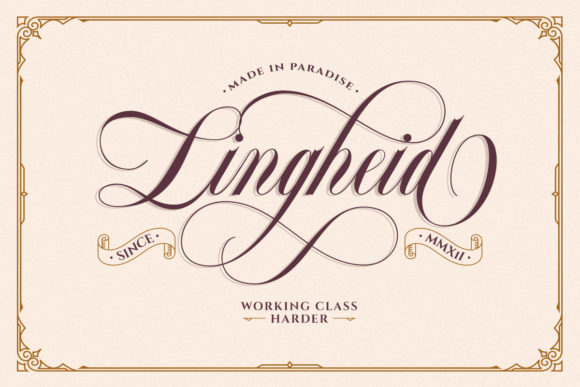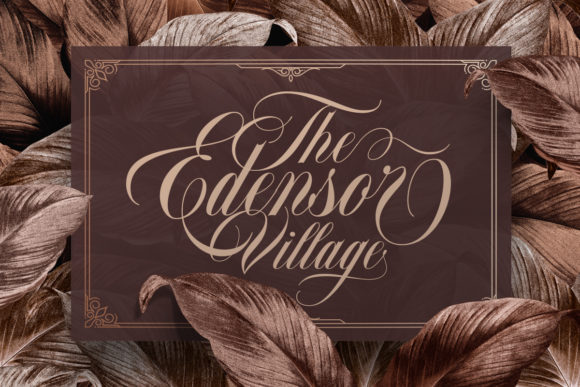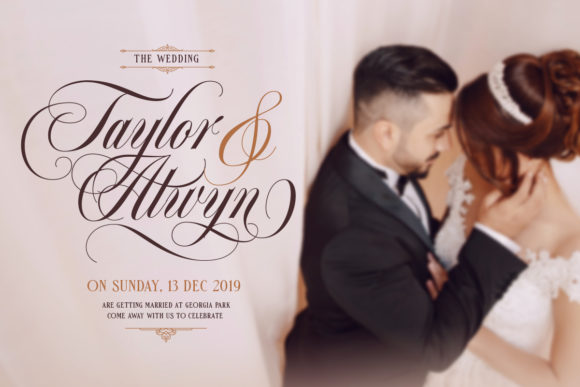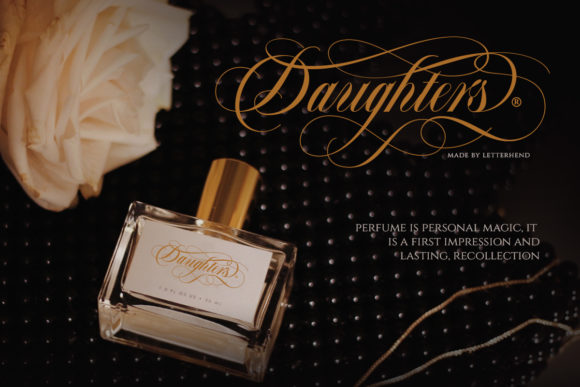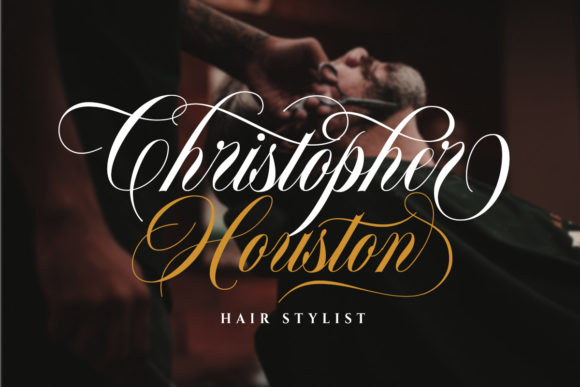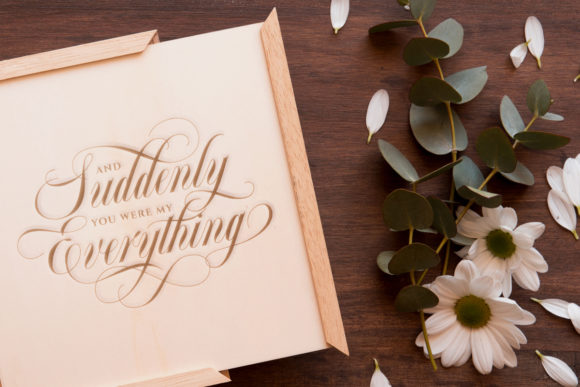
Bordemile Font: Elevate Your Designs with Luxurious Script Elegance
In the world of typography, a font can make or break a design. For those seeking to add a touch of luxury and sophistication, the Bordemile Font is an exceptional choice. This stunning script typeface, adorned with unique swashes, is versatile and perfect for a wide variety of projects. Whether you’re a designer looking to elevate your branding, a crafter aiming to add elegance to your creations, or simply a typography enthusiast, Bordemile is sure to captivate.
The Essence of Bordemile Font
Bordemile Font is a luxury script typeface that stands out for its distinctive swashes and elegant flow. Its design is meticulously crafted to provide a sense of grandeur and refinement, making it ideal for projects that demand a high level of sophistication. From elegant wedding invitations and high-end branding to stylish packaging and creative digital content, Bordemile brings a level of class and poise that is hard to match.
Key Features of Bordemile Font
- Unique Swashes: One of the standout features of Bordemile is its beautiful, unique swashes. These decorative strokes add a dynamic and artistic flair to your text, allowing you to create visually stunning pieces that capture attention.
- Luxury Appeal: The font exudes luxury, making it perfect for high-end projects. Its elegant design ensures that your work stands out as sophisticated and refined.
- Versatility: Bordemile is incredibly versatile. It can be used for a wide range of projects, including but not limited to, logos, branding, invitations, posters, and digital content.
- Script Elegance: The script style of Bordemile offers a fluid and graceful look that can add a personal touch to your designs, making them more engaging and memorable.
Who Can Benefit from Bordemile Font?
Bordemile Font is a valuable asset for a variety of professionals and enthusiasts:
- Graphic Designers: Looking to create elegant and luxurious branding or marketing materials? Bordemile can elevate your designs with its sophisticated appeal.
- Stationery and Invitation Designers: For those creating wedding invitations, event invites, or elegant stationery, Bordemile adds a touch of class and exclusivity.
- Crafters: If you’re into crafting, especially making personalized gifts or decorations, Bordemile can help you add a professional and stylish touch to your projects.
- Digital Content Creators: Bloggers, YouTubers, and social media influencers can use Bordemile to create visually appealing thumbnails, headers, and promotional materials.
Tips for Using Bordemile Font Effectively
To maximize the impact of Bordemile Font, consider the following tips:
- Pair with Complementary Fonts: Combine Bordemile with simpler, sans-serif fonts for contrast and to highlight key information.
- Adjust Swashes: Experiment with the swashes to match the tone of your project. You can use them sparingly for a subtle effect or more liberally for a dramatic impact.
- Consider Size and Color: Use Bordemile in larger sizes for headings or titles to draw attention, and choose colors that reflect the mood of your design.
Bordemile Font is more than just a typeface; it’s a design statement. Its luxurious script elegance, coupled with unique swashes, makes it an excellent choice for anyone looking to add a touch of sophistication to their projects. Whether you’re a professional designer or a crafting enthusiast, Bordemile offers the versatility and elegance needed to create stunning designs. Explore the possibilities with Bordemile Font and discover how it can elevate your work to new heights of creativity and refinement.